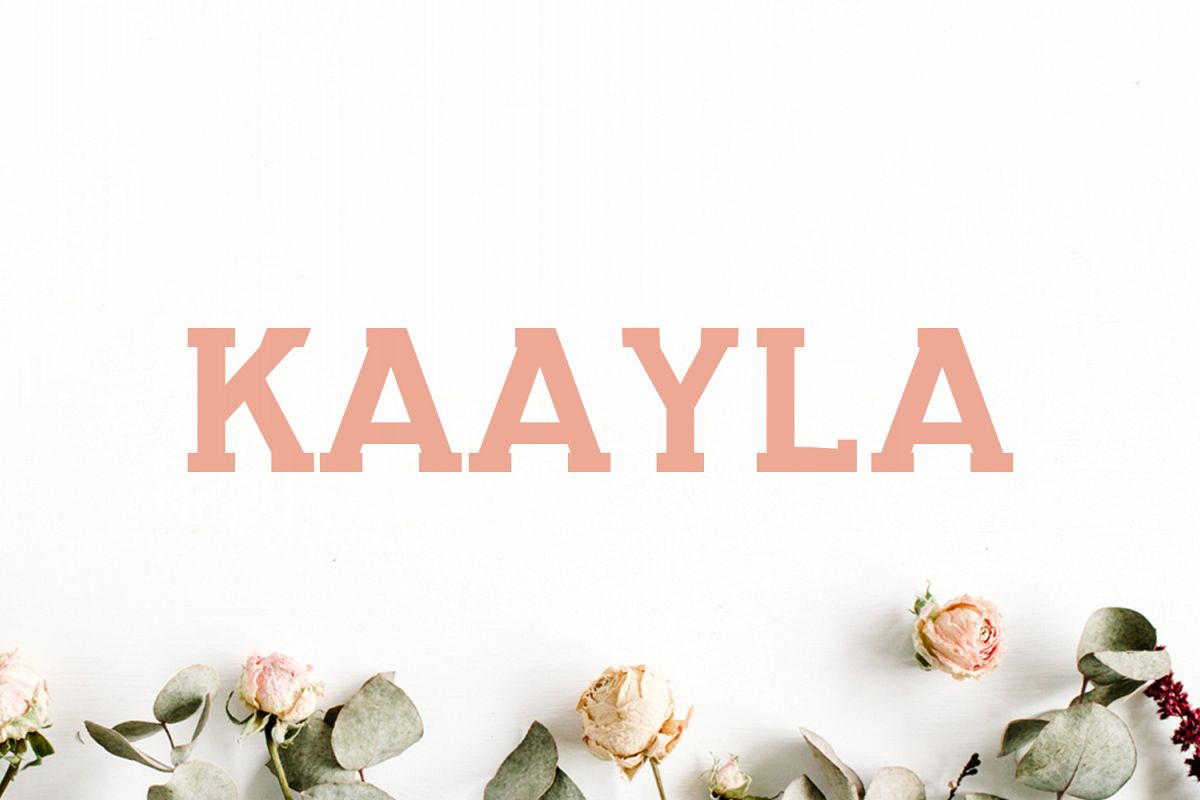
Kaayla Slab Serif 4 Font Pack
Kaayla Slab Serif Typeface set contains 4 Weights and it is good for making creative displays. It’s a lovely and unique slab serif font in our store, allowing you to make each word look completely stylish! It Suits best for modern / clean designs, logos, headlines, banners and templates etc. It looks gorgeous in all caps with a wide-set spacing if you want to try a classy look, or beautiful on its own in capital and lowercase letters for something completely timeless.
• Regular, Outline, Extra-Bold and Black Weights
Kaayla Font Features:
• Uppercase Multilingual Letters
• Lowercase Multilingual Letters
• Alternative